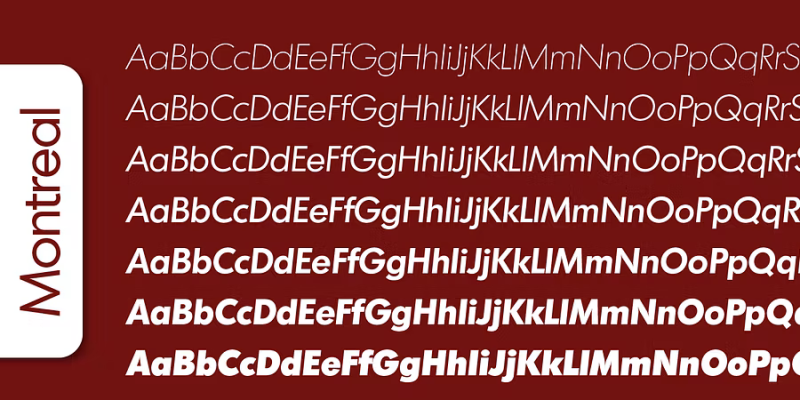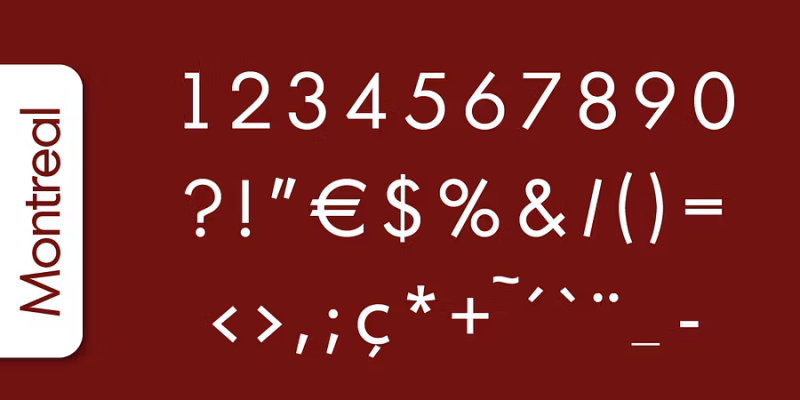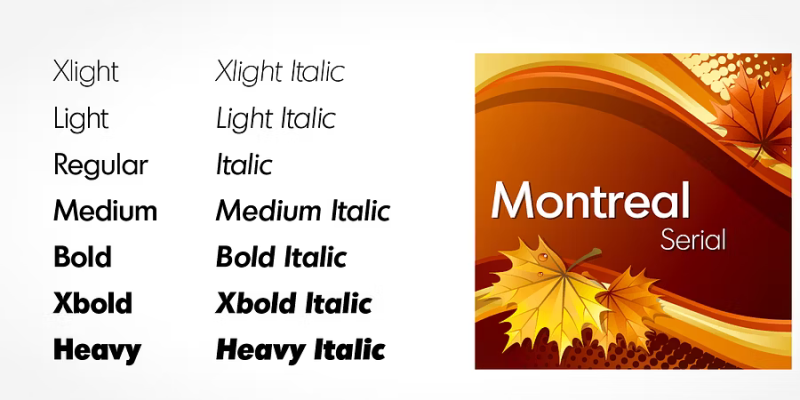
Montreal Serial Font Family
Montreal Serial Font Family was designed by published by SoftMaker. Montreal Serial contains 14 styles and family package options.
Based in Germany, SoftMaker has licensed many fonts that are revivals of old foundry designs but has also created its own fonts. SoftMaker offers Suetterlin fonts (old German handwriting font types), stunningly beautiful handwriting fonts, headline typefaces and much more.
Montreal Serial Font Family is a Sans Serif Fonts font that brings a professional and versatile look to your projects. Montreal Serial Font Family was designed by published by SoftMaker.